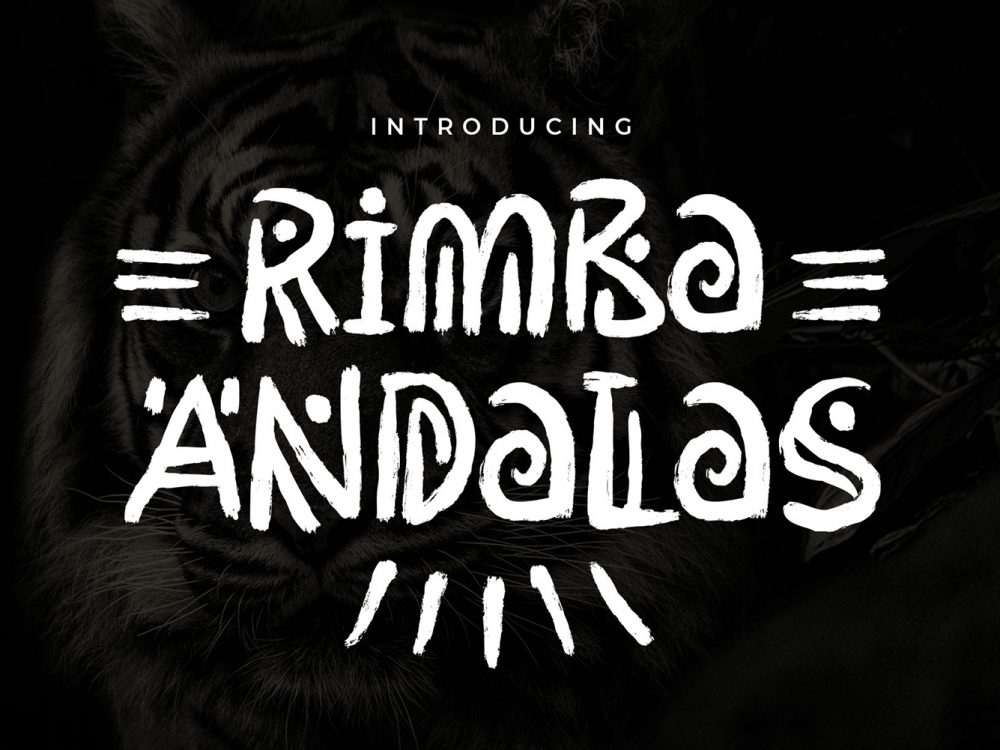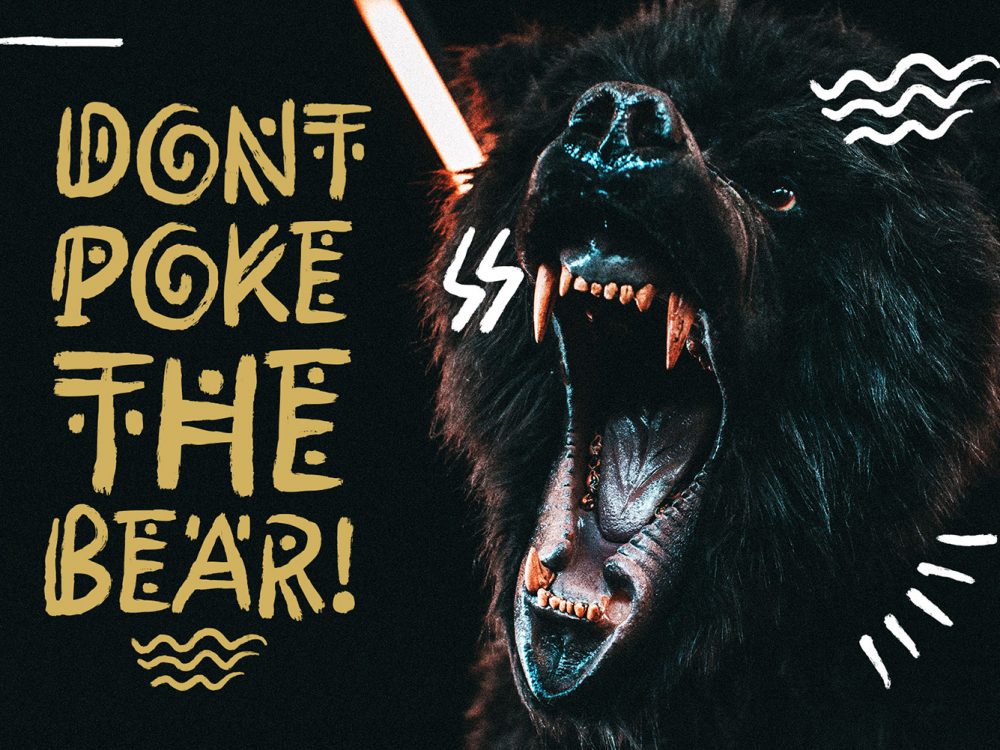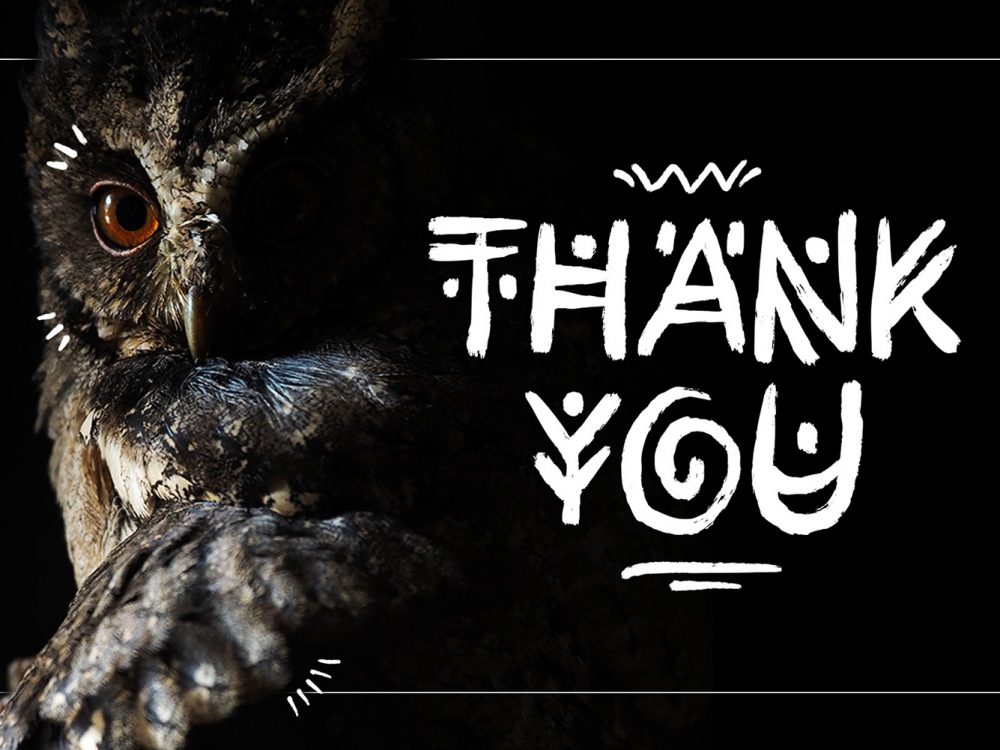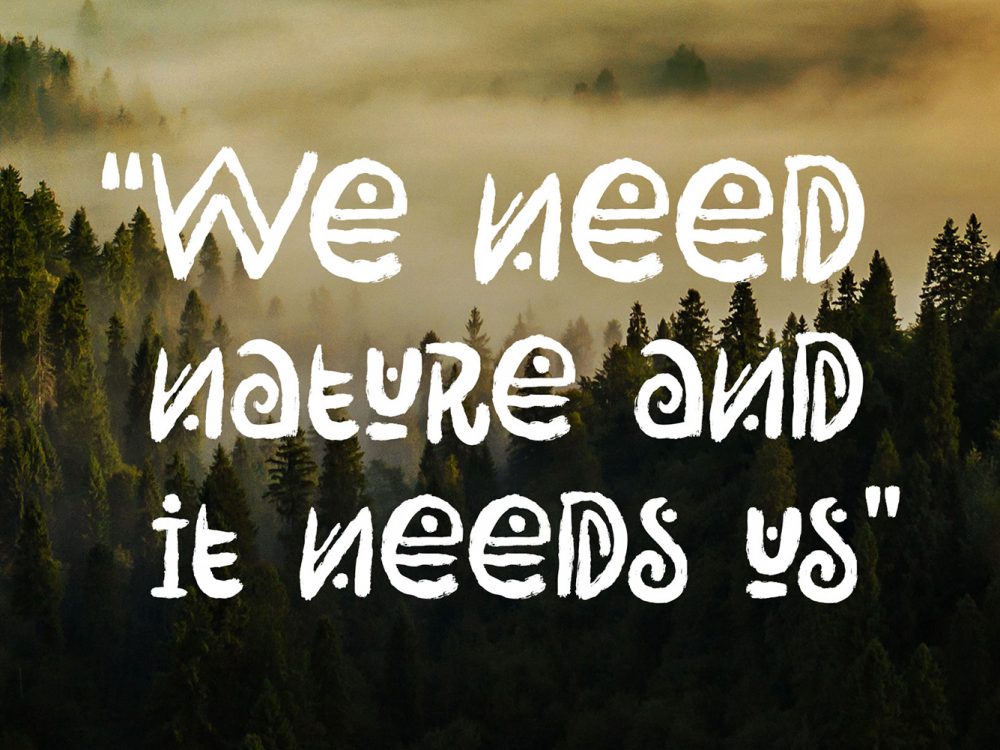
Rimba Andalas Free Font
Rimba Andalas Free Font is an interesting typeface that mimics writing with a brush and has an elegant style. This font is very suitable for creating various design projects that require a handwritten font. These can be posters, cards, invitations, flyers, prints, and much more. If you wish to access more features and use it for commercial work please buy the If you like it don’t forget to check out the full version.